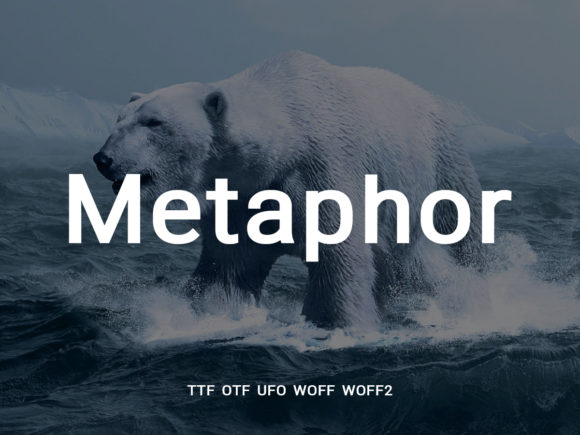
Unveiling Metaphor: A Sans Serif Font Symphony for Your Creative Vision
In the realm of typography, where letters dance and words ignite imaginations, Metaphor emerges as a captivating sans serif font, a masterpiece crafted by DG_store. Prepare to be mesmerized by its minimalist elegance and pristine lines, designed to elevate your creative endeavors to new heights.
Metaphor is not just a collection of characters; it's an artistic expression, a tool that empowers you to weave tales and manifest your visions into tangible realities. Its strokes, meticulously crafted with precision and grace, embody the essence of sophistication and simplicity, striking a perfect balance between form and function.
With Metaphor as your chosen companion, your designs will exude an aura of effortless elegance. Its clean and unadorned appearance allows your content to take center stage, ensuring that every word, every message, and every idea shines with clarity and impact. Whether you're a seasoned designer or just starting your creative journey, Metaphor will seamlessly blend with your artistic vision, enhancing your projects with a touch of understated brilliance.
Harness the power of Metaphor to transform your creative pursuits into captivating masterpieces. Let its minimalist design elevate your branding, captivating your audience with a visual symphony that speaks volumes. Its versatility knows no bounds, effortlessly adapting to a myriad of projects, from sleek logos and eye-catching social media posts to stunning magazine layouts and captivating website designs.
Experience the transformative power of Metaphor today. Embrace its minimalist charm and let your creativity soar. Unleash the storyteller within you, weave captivating narratives, and create designs that leave an indelible mark on your audience. With Metaphor as your font of choice, the possibilities are endless.
Elevate your designs, ignite your imagination, and let Metaphor be the guiding light on your creative journey. Its beauty and versatility will inspire you to create masterpieces that transcend the ordinary and leave an enduring legacy of excellence.